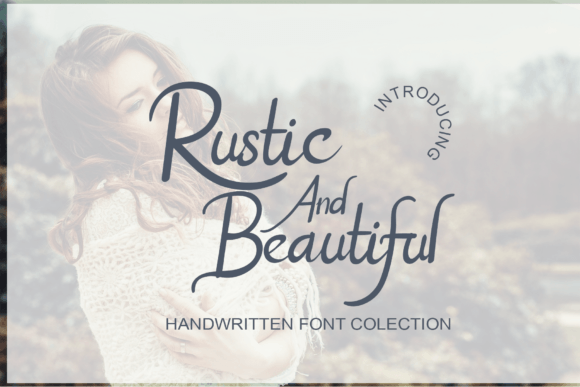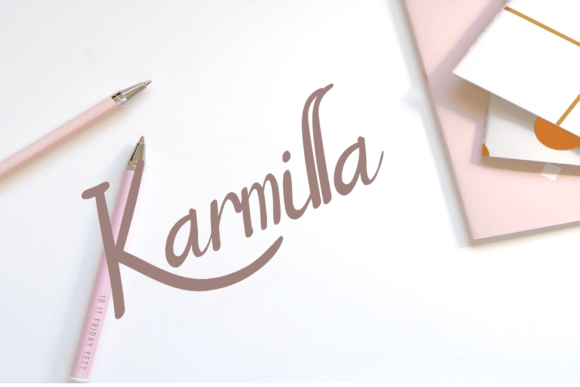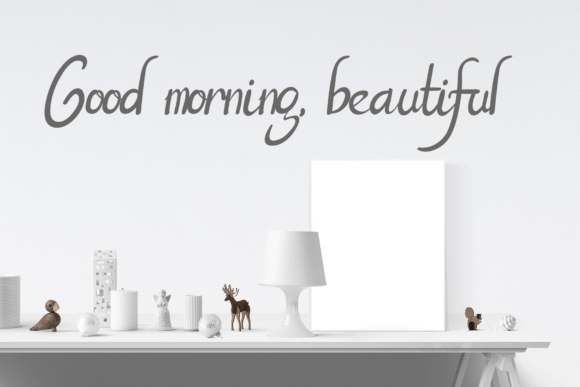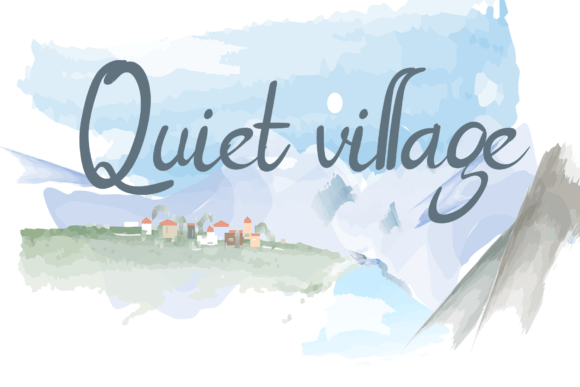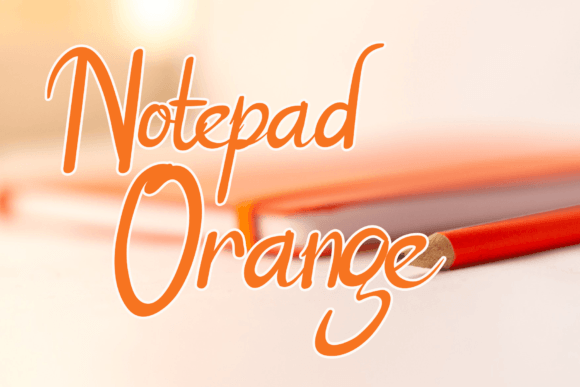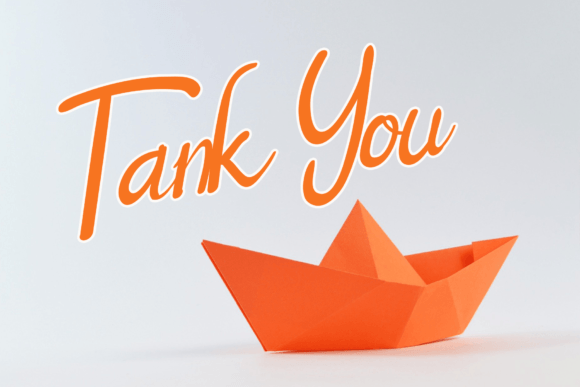
Rustic and Beautiful Font
“Rustic and Beautiful” is a fancy handwritten font designed to add a touch of creativity to your projects. With its unique and rustic aesthetic, this font is suitable for a variety of applications, including logo design, social media graphics, movie titles, and book titles. It offers the opportunity to create stunning and visually impactful work with its distinctive style.
The fancy and handwritten elements of Rustic and Beautiful contribute to its artistic and creative vibe, making it a versatile choice for different design purposes. Whether you’re aiming for a vintage look, a rustic feel, or an overall aesthetic that stands out, this font provides the means to achieve stunning results.
The font’s suitability for logo design ensures that your brand or project can be represented with a touch of elegance and creativity. Additionally, its application in social media, movie titles, and book titles allows for a consistent and eye-catching design across various platforms.
In summary, Rustic and Beautiful is more than just a font; it’s a creative tool that adds a fancy and handwritten flair to your designs. Let Rustic and Beautiful be the choice that enhances your logo, social media graphics, movie titles, and book titles, allowing you to create stunning and visually captivating work.